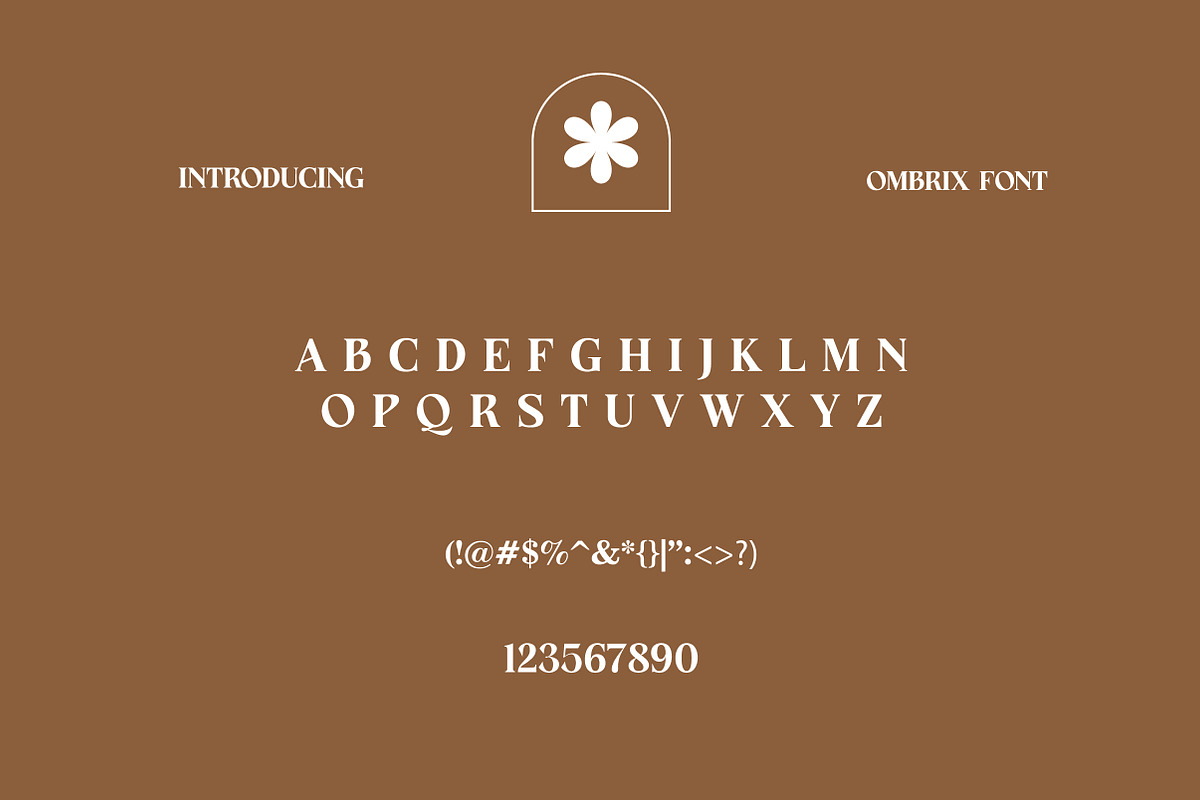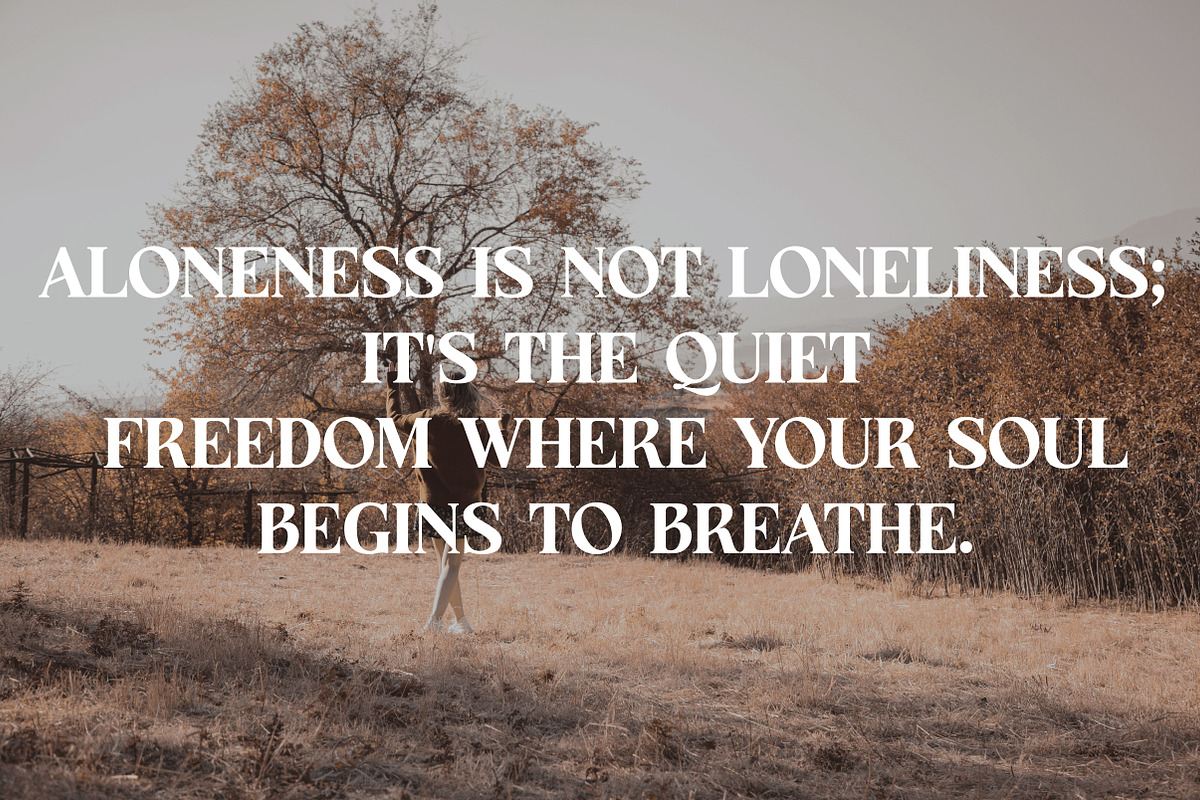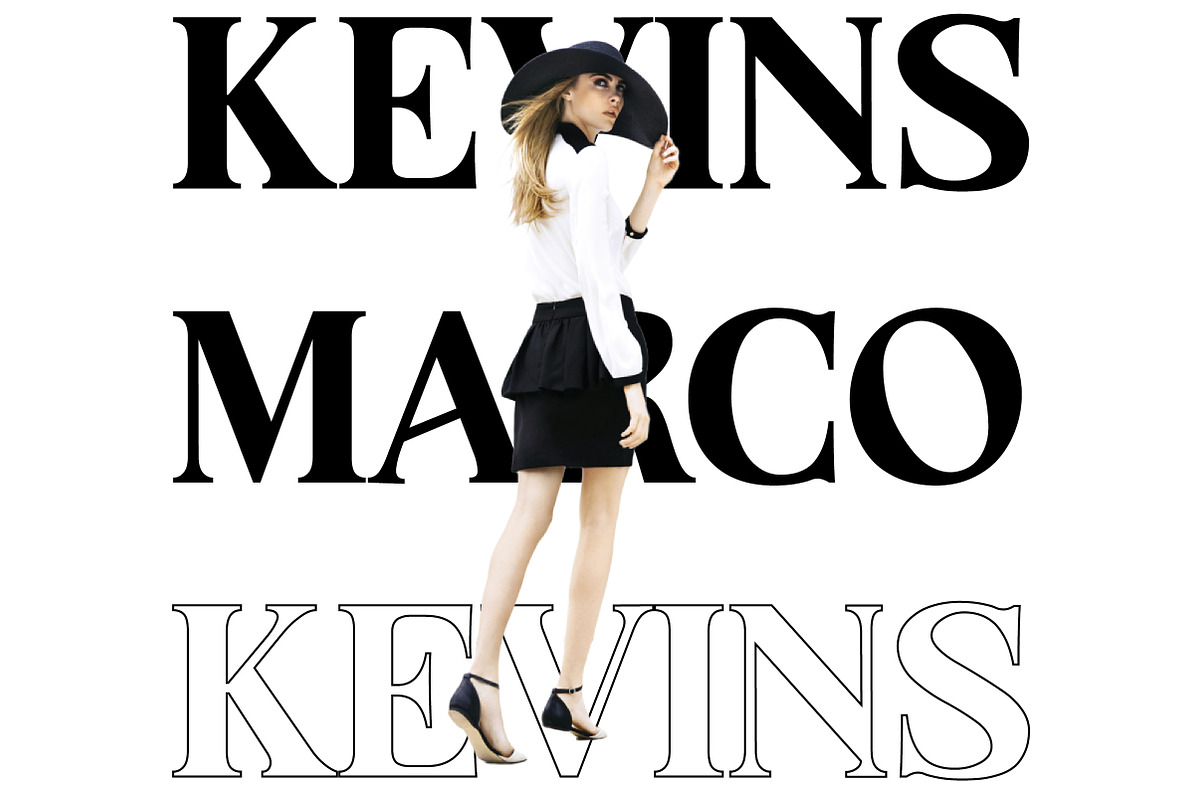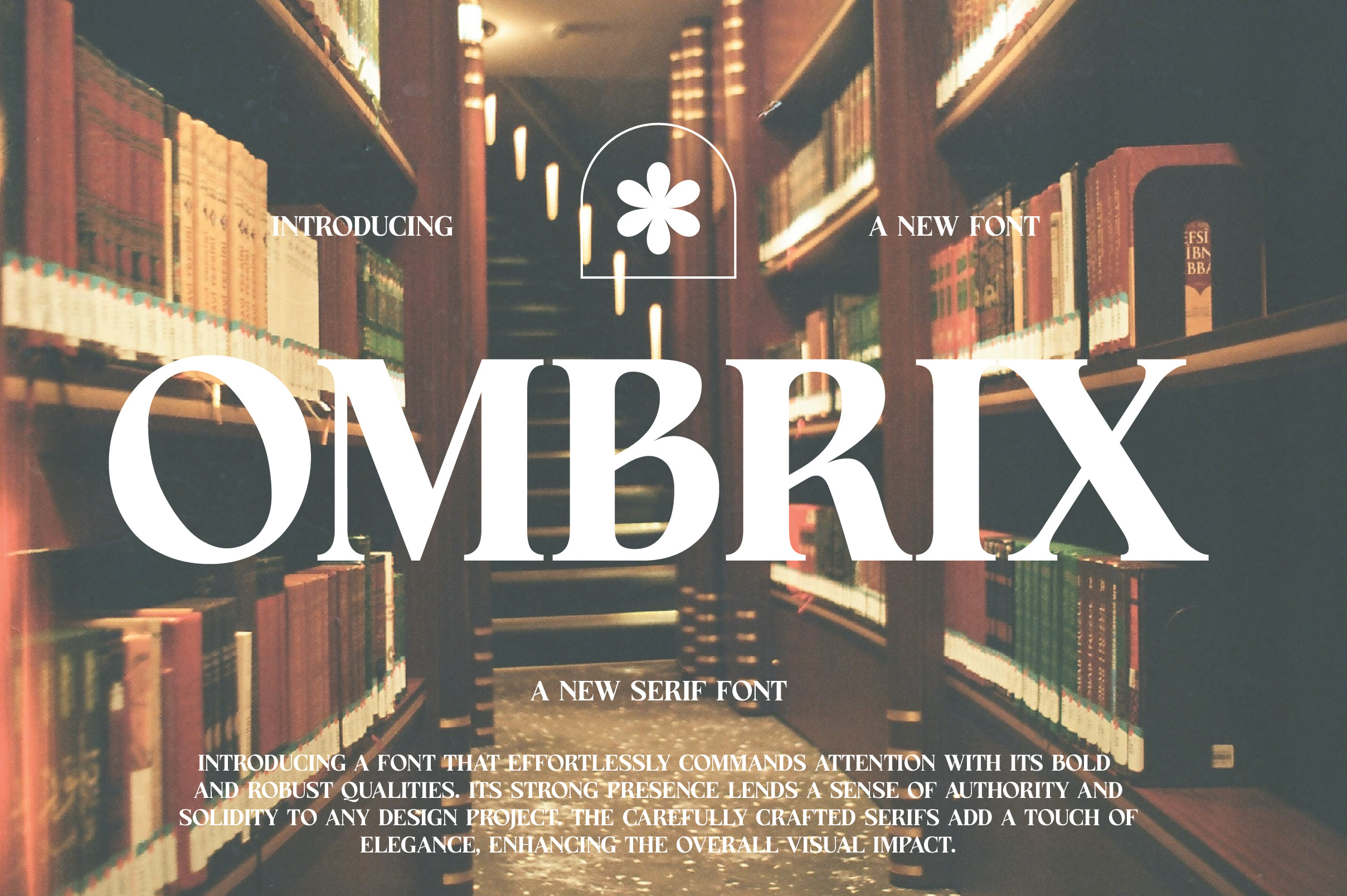
Ombrix | Contemporary Serif Typeface
Ombrix is a contemporary serif typeface that fuses modern elegance with clean typographic structure. Its Regular style features crisp serifs, smooth curves, and balanced letterforms—ideal for branding, editorial layouts, logos, web design, packaging, and sophisticated print materials. Designed for optimal versatility and readability, Ombrix excels in both display and paragraph settings. Its polished, professional aesthetic makes it an excellent choice for high-end design projects in both digital and print formats.
Ombrix is a reliable serif font for creatives who value clarity, sophistication, and a modern classic touch in their work.